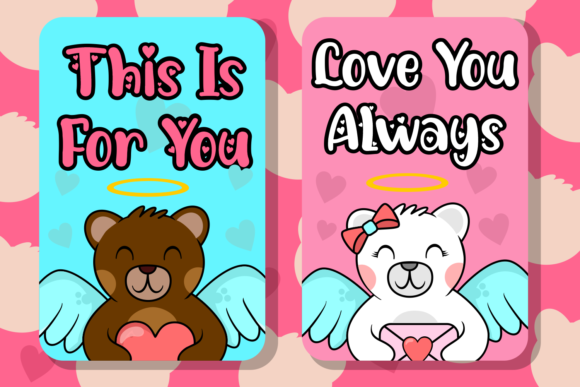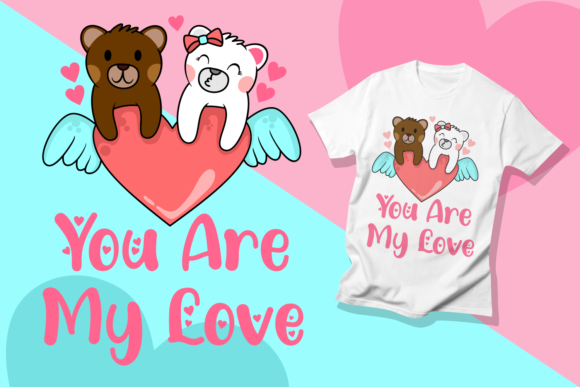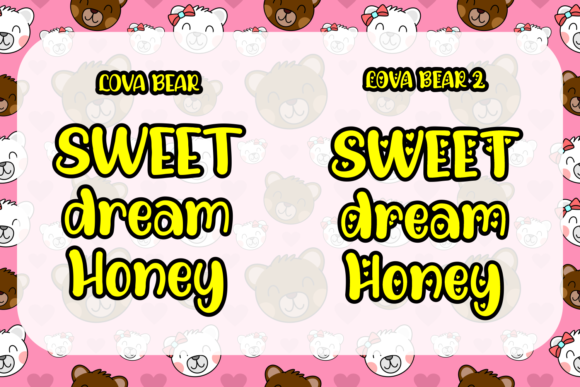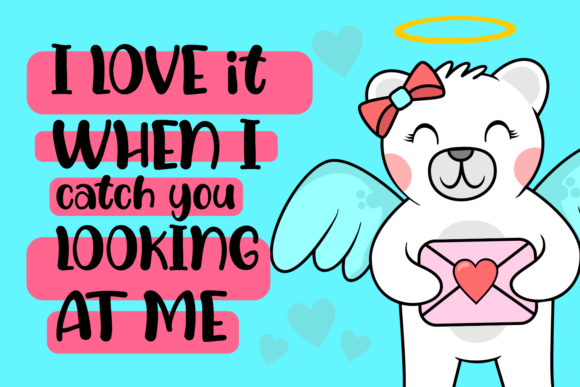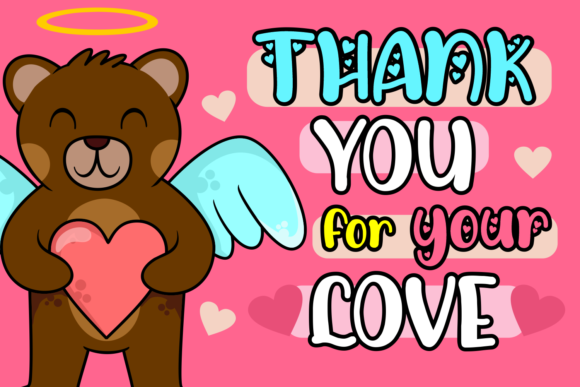
Lova Bear Font
About Lova Bear Font
Lova Bear is a sweet, soft hand-lettered script. The playful rounded characters make it the perfect font for creating stunning Valentine’s Day art. Lova Bear comes packed with heart-themed letters, that will allow you to add a decorative touch within seconds. It comes in 2 unique font styles, Lova Bear 1 and 2. Fall in love with its authentic feel and use it to create gorgeous wedding invitations, beautiful stationary art, eye-catching social media posts, and cute greeting cards.